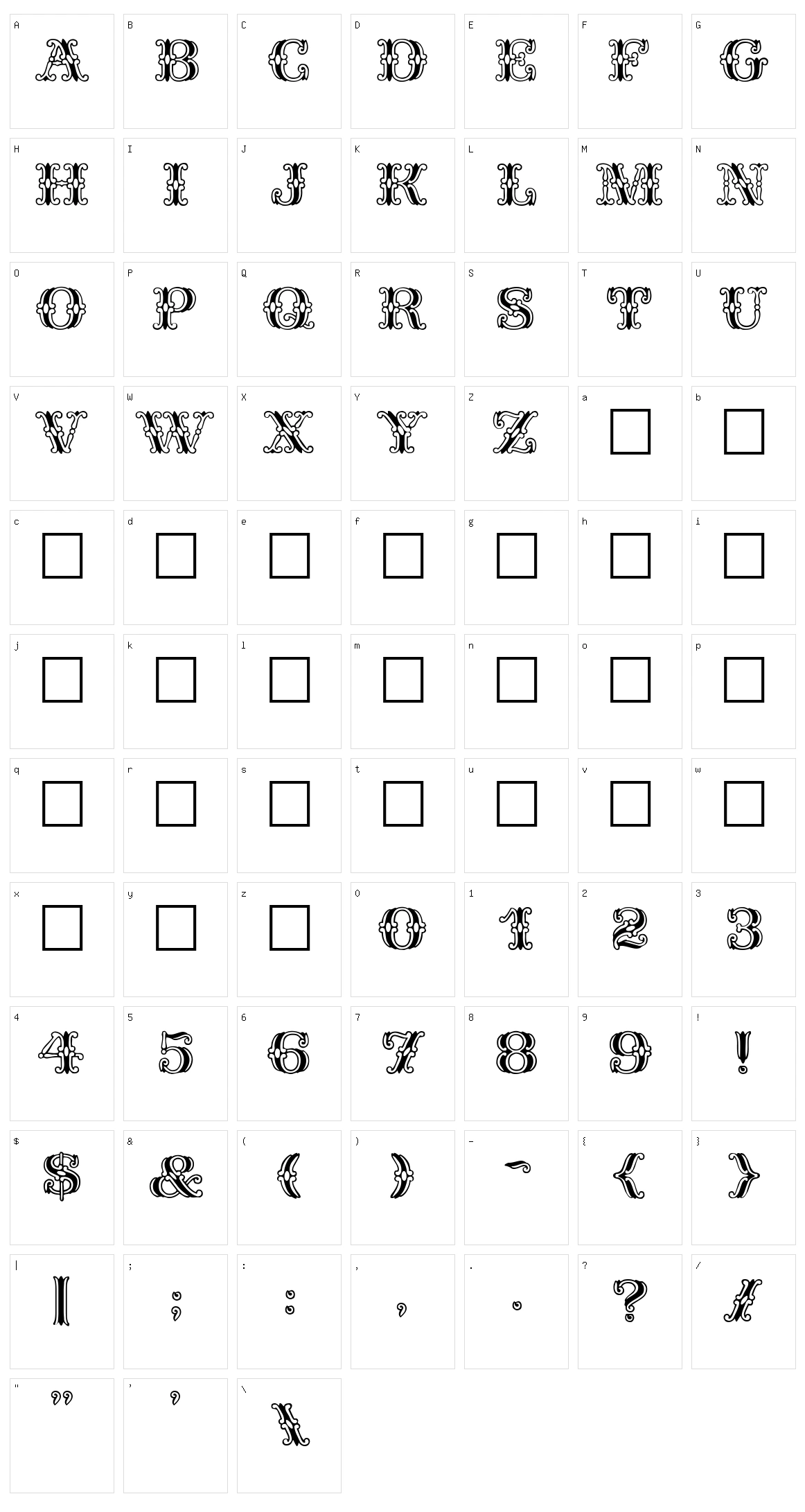
The free font Spatz is carefully designed by Lorvad, showcasing a thoughtful balance of creativity and usability and falls under the Retro font style. When you download the ZIP file, it contains only 39.53 KB of font files, making it lightweight and quick to download. Please review the license details below to understand permitted usage and distribution rights. If license information is not available, we recommend using this font for personal projects only or contacting the author directly for commercial usage permissions.